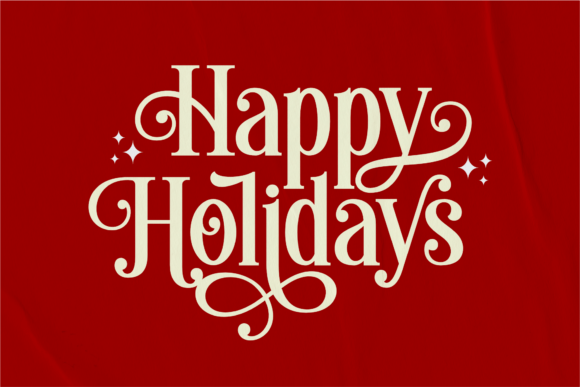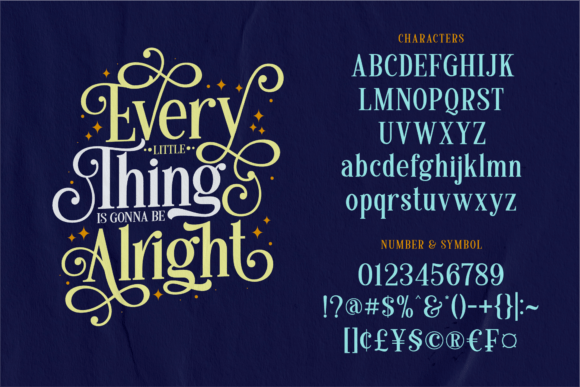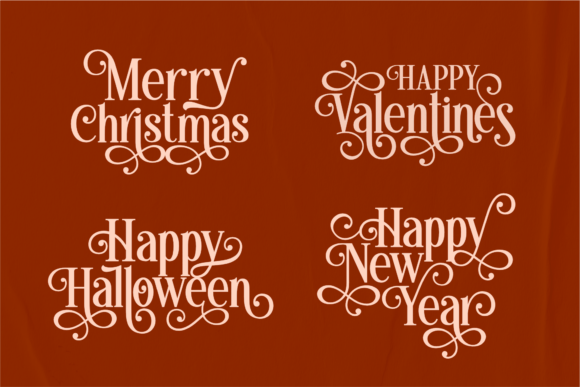
Introduction to Mighty Display Font
Mighty Display is a bold and elegant serif display font that commands attention.
With strong, stylized letterforms and decorative flourishes, this font is perfect for creating impactful headlines, logos, and branding materials This font is sure to make a lasting impression.
Why Choose Mighty Display Font?
Mighty Display Font offers exceptional quality and versatility, making it a valuable addition to your design toolkit. Whether you’re creating for personal projects or commercial use, Mighty Display Font delivers professional results.